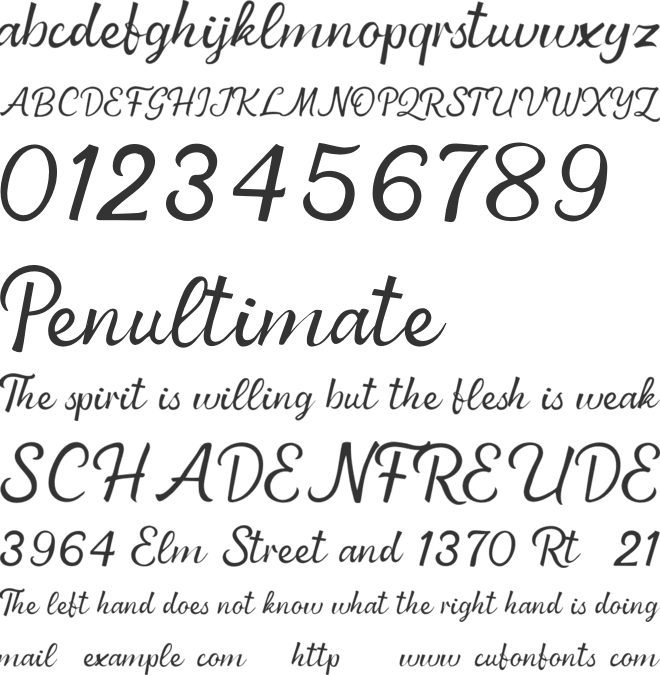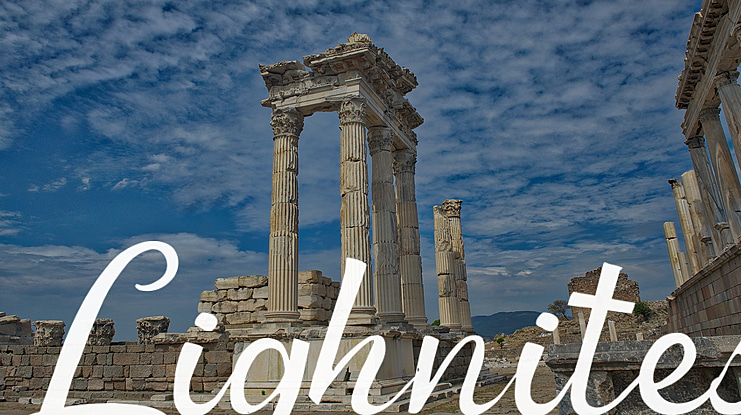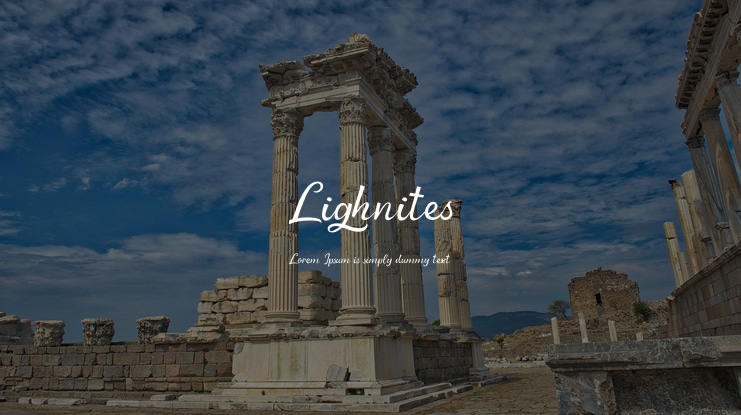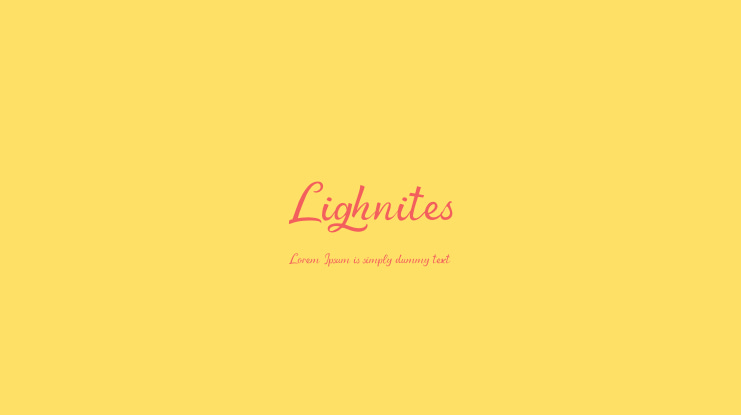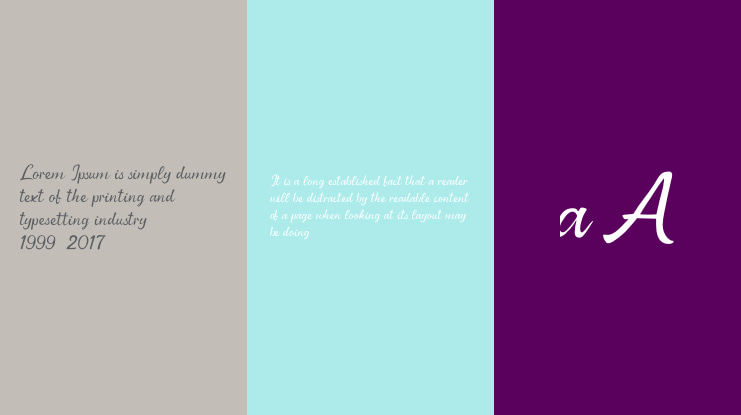
Lighnites Font
Lighnites is an elegant and dainty handwritten font that features sweet and delicate swashes. This original look will appeal to a wide range of crafty ideas, from letterheads and titles, to stationery.